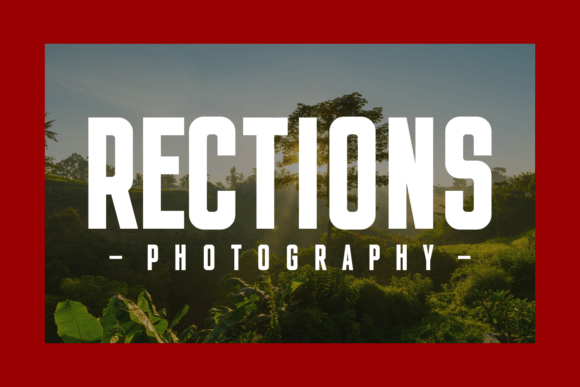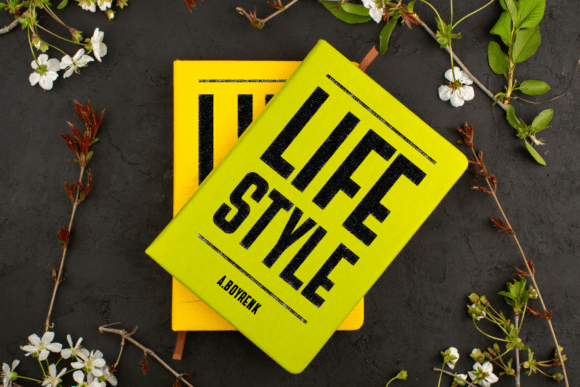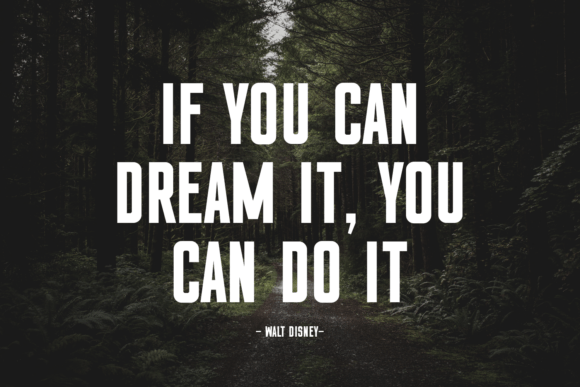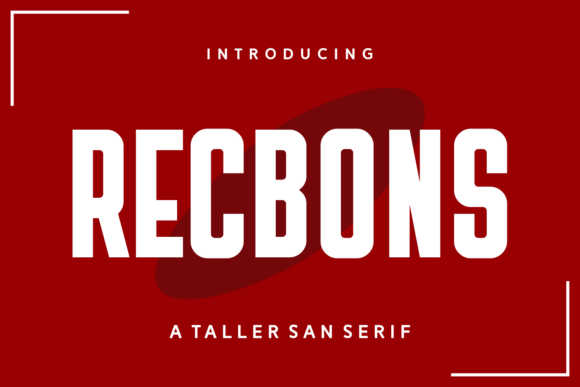
Introduction to Recbons Font
Recbons is a sleek, modern sans-serif font designed for versatility and readability.
Its clean lines and balanced proportions make it ideal for branding, digital design, and print With a contemporary aesthetic, Recbons adds sophistication and clarity to any project, ensuring professional, stylish results.
Key Features of Recbons Font
Why Choose Recbons Font?
Recbons Font offers exceptional quality and versatility, making it a valuable addition to your design toolkit. Whether you’re creating for personal projects or commercial use, Recbons Font delivers professional results.